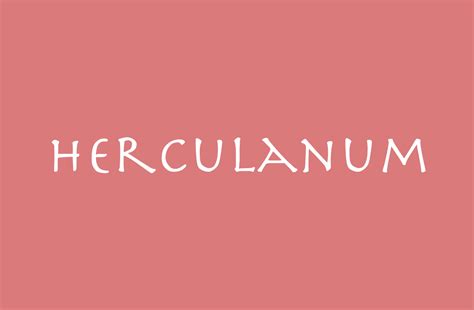
Herculanum Font: A Detailed Guide & Usage
Hey guys! Today, we’re diving deep into the world of the Herculanum font . If you’re even remotely interested in typography or design, you’ve probably stumbled upon this unique typeface. This comprehensive guide will explore what makes the Herculanum font so special, where you can use it, and how to get the most out of it. So, buckle up and let’s get started!
What is Herculanum Font?
So, you’re probably asking, “ What exactly is the Herculanum font?” Well, let’s break it down. Herculanum is a distinctive typeface characterized by its ancient Roman or archaic appearance. It evokes a sense of history and classicism, making it a popular choice for designs that aim to convey elegance, tradition, or a connection to the past. The font is known for its irregular, hand-drawn aesthetic, which sets it apart from more polished and contemporary typefaces. Its letterforms often feature varying stroke widths and subtly uneven baselines, contributing to its organic and timeless feel.
When you first see Herculanum, you might notice its unique blend of simplicity and sophistication. It’s not your everyday font; it has a personality all its own. It’s designed to look like something you’d find inscribed on an ancient Roman artifact. It is this connection to antiquity that gives it its special appeal. The font’s creator sought to capture the essence of hand-carved lettering, resulting in a typeface that feels both authentic and refined. Because of its roots in ancient letterforms, Herculanum is often used in projects where a sense of history or timelessness is desired. From book covers to branding materials, its distinctive look can add a touch of classical elegance.
Furthermore, the Herculanum font isn’t just about looking old; it’s about conveying a sense of permanence and enduring quality . Think about the grand inscriptions on historical buildings or the titles of classic books. Herculanum is designed to evoke those feelings. Its slightly irregular appearance gives it a human touch, reminding us that it was crafted with care and precision. This makes it an excellent choice for projects that need to feel both authoritative and approachable. Whether used in small amounts for logos or headlines, or in larger bodies of text for special documents, Herculanum can bring a unique and sophisticated touch to any design. It’s a font that tells a story and connects the present with the rich visual heritage of the past.
Key Characteristics of Herculanum Font
Alright, let’s dive into the specific characteristics that define the Herculanum font . What makes this font tick? What are its defining features? Here’s a breakdown:
1. Archaic Appearance : The font is heavily inspired by ancient Roman lettering. This gives it a timeless and historical feel.
2. Irregular Letterforms : Unlike modern, geometric fonts, Herculanum has a hand-drawn quality. The strokes vary in thickness, and the baselines are subtly uneven.
3. Classic Elegance : Despite its irregularities, Herculanum exudes elegance and sophistication. It’s not just an old font; it’s a classy one.
4. Versatility : Surprisingly, Herculanum is versatile. It can be used in various design contexts, from branding to editorial design.
5. Unique Texture : The combination of its archaic appearance and irregular forms creates a unique texture that draws the eye and adds depth to any design.
These characteristics collectively contribute to the font’s distinctive personality. Each letterform is carefully crafted to maintain the overall aesthetic, creating a cohesive and visually appealing typeface. The irregularities, while subtle, are essential to its charm, making it feel less mechanical and more organic. This font is a testament to the beauty of imperfection and the enduring appeal of classical design. Its characteristics aren’t just aesthetic choices; they’re deliberate efforts to capture the essence of ancient lettering and bring it to a modern audience.
Moreover, the key characteristics of the Herculanum font extend beyond mere appearance. They influence how the font interacts with other elements in a design. For example, its irregular letterforms mean that it pairs well with fonts that have a similar hand-drawn quality or with more structured fonts that provide a visual contrast. Its classic elegance makes it suitable for high-end branding and editorial projects, while its versatility means it can be used in unexpected ways to add a touch of sophistication to everyday designs. Understanding these characteristics helps designers use Herculanum effectively, ensuring that it enhances the overall look and feel of their projects. In essence, the font’s unique blend of history, irregularity, and elegance makes it a powerful tool for visual communication.
Where to Use Herculanum Font
So, you’re digging the Herculanum font , but where can you actually use it? What are some practical applications? Here are a few ideas to get your creative juices flowing:
• Logos and Branding : If you want to convey a sense of history, tradition, or elegance, Herculanum can be a fantastic choice for your logo. Think wineries, artisanal brands, or historical societies.
• Editorial Design : Use it for headings, subheadings, or pull quotes in magazines and books. It’s especially effective for historical fiction or non-fiction.
• Invitations and Stationery : Add a touch of class to your wedding invitations, thank you notes, or business cards.
• Posters and Art Prints : Create visually striking posters or art prints with a classical vibe.
• Web Design : While it’s not ideal for body text (due to its readability), Herculanum can be used for headings or decorative elements on websites.
When using Herculanum, consider the context and overall design. It pairs well with both modern and classic fonts, but make sure there’s enough contrast to avoid a cluttered look. Also, remember that less is often more. Herculanum is a statement font, so use it sparingly to make the most impact. It’s particularly effective when used in larger sizes, where its unique details can be fully appreciated. Whether you’re designing a logo, a book cover, or a website, Herculanum can add a touch of timeless elegance and sophistication.
In conclusion, the Herculanum font is more than just a typeface; it’s a tool for storytelling and visual communication . Its unique blend of history, elegance, and versatility makes it a valuable asset for designers seeking to create impactful and memorable designs. By understanding its key characteristics and following the tips outlined in this guide, you can unlock the full potential of Herculanum and create visually stunning projects that stand the test of time. Whether you’re a seasoned designer or just starting out, exploring the possibilities of Herculanum can open up new creative avenues and enhance your design toolkit. So go ahead, experiment, and see what magic you can create with this timeless typeface!